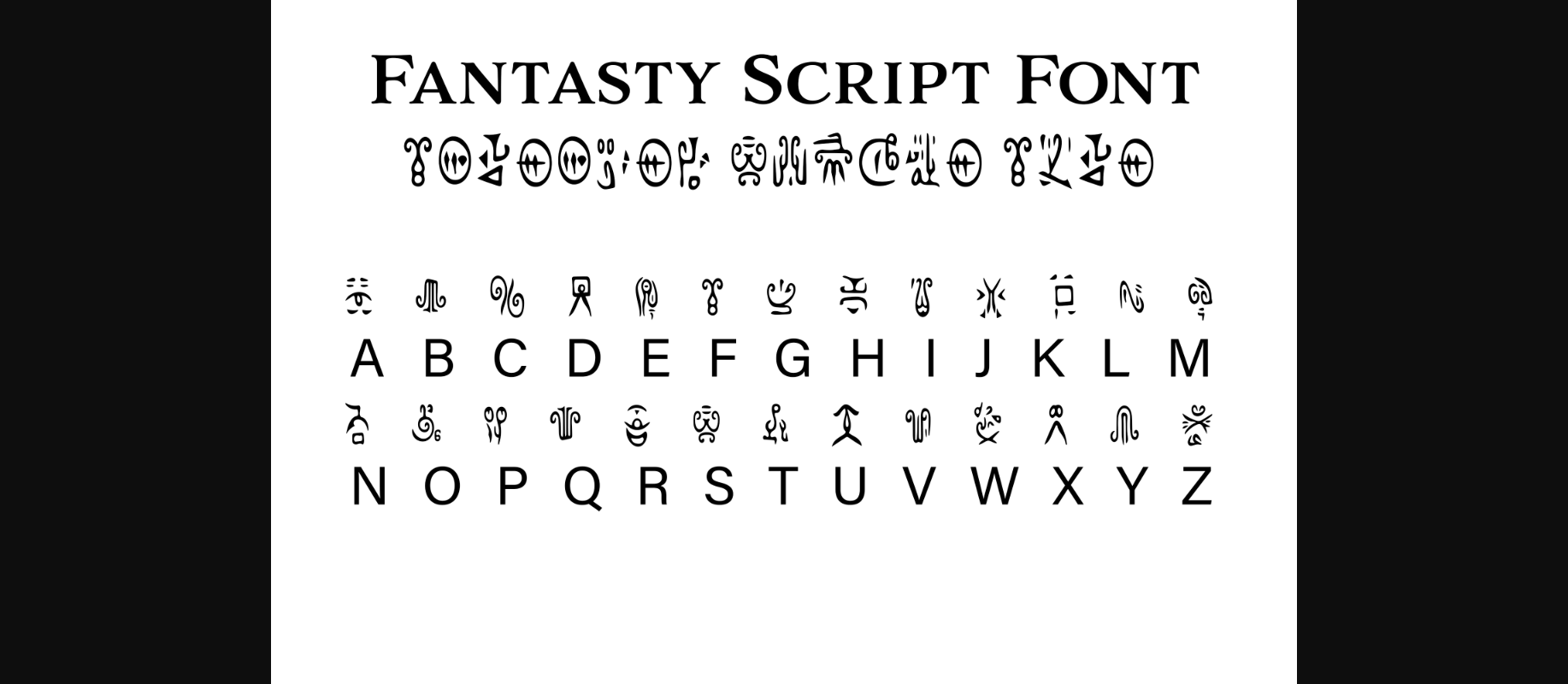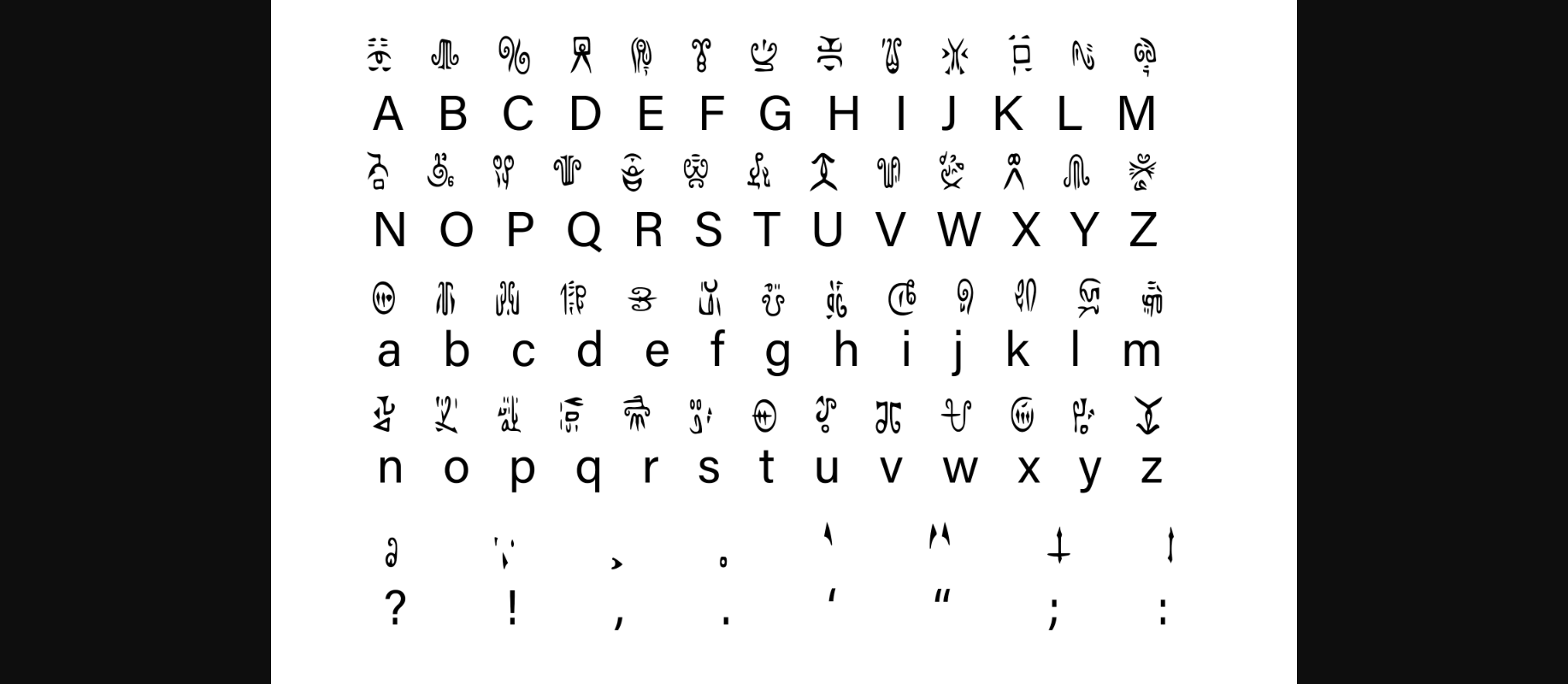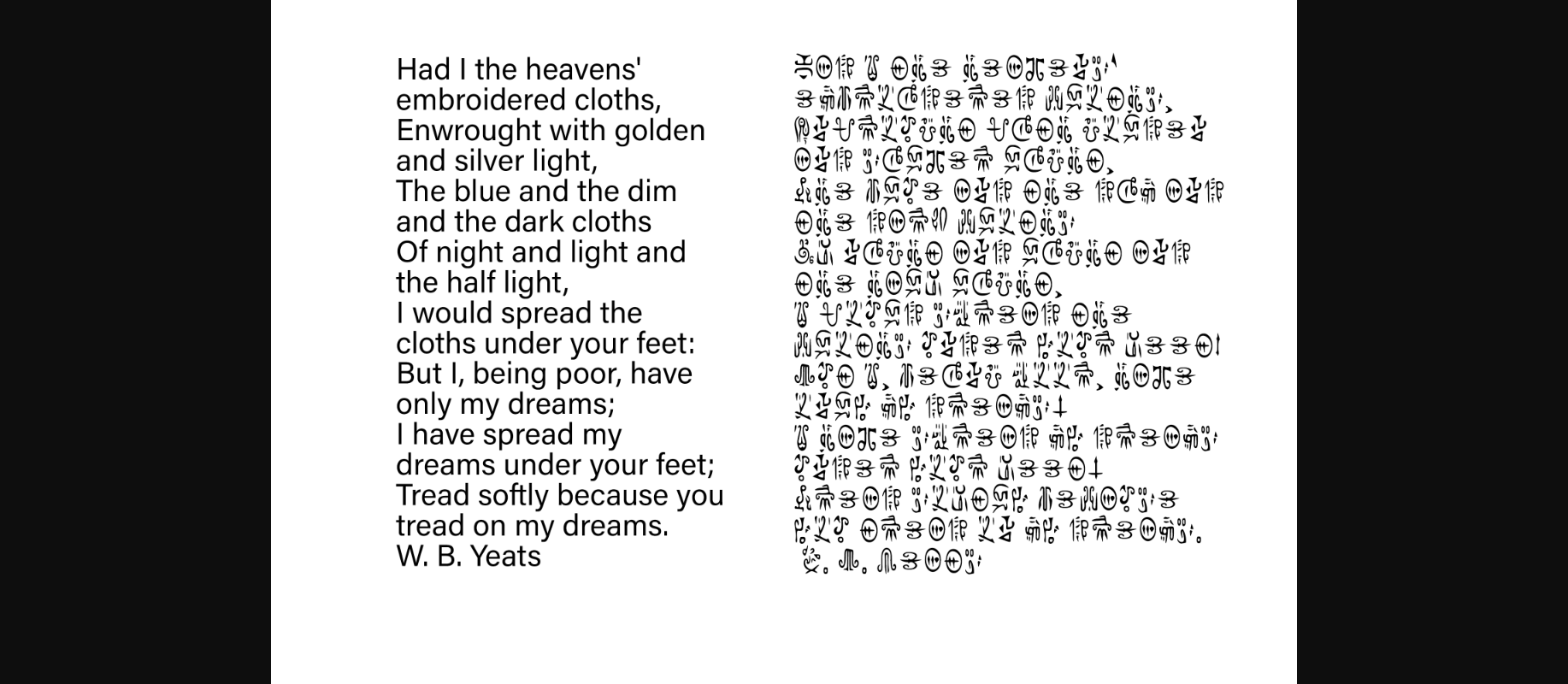
HomeDecorative FontsFantasy Script 4 Font Decorative Fonts Fantasy Script 4 Font FacebookXPinterestWhatsApp 1 of 5 ... Fantasy Script 4 Font Poster 2... Fantasy Script 4 Font Poster 3... Fantasy Script 4 Font Poster 4... Fantasy Script 4 Font Poster 5... About Fantasy Script 4 Font Fantasy is perfect for your next Dungeons and Dragons campaign, fantasy LARP adventure, novel, or whatever else you’re working on! This font includes the standard English alphabet and basic punctuation. DOWNLOAD NOW People also explored Meryana Font Solomon Sans Sweety Font Hillogam Font Hyacinth Font Corobikan Font Bismore Font Better Font Nombus Koka Font 299 0 TagsFantasy Script 4 Font Previous articleClatter Sparkle FontNext articleFantasy Script 9 Font LEAVE A REPLY Cancel reply Comment: Please enter your comment! Name:* Please enter your name here Email:* You have entered an incorrect email address! Please enter your email address here Website: Save my name, email, and website in this browser for the next time I comment. Personal Use Free Milda Personal Use Free Read more about this font Kitchen Blue Personal Use Free Read more about this font Consequences Personal Use Free Read more about this font Maxwell Personal Use Free Read more about this font BLOG Fonts That Capture the Spirit of New York City New York City is more than just a place—it’s an experience, a rhythm, a visual language... Modern Sans-Serif Fonts That Brands Love in 2025 5 Fonts That Will Dominate Design Trends in 2026 The 10 Best Handwriting Fonts to Add Personality to Your Designs